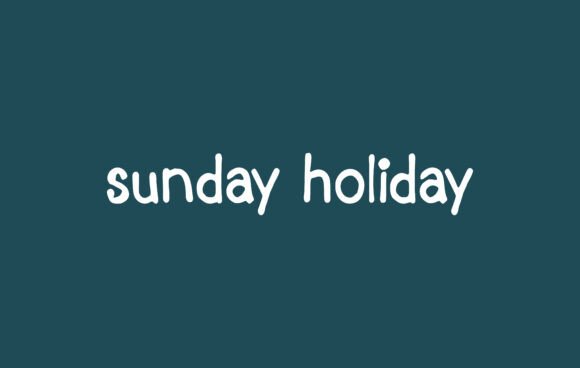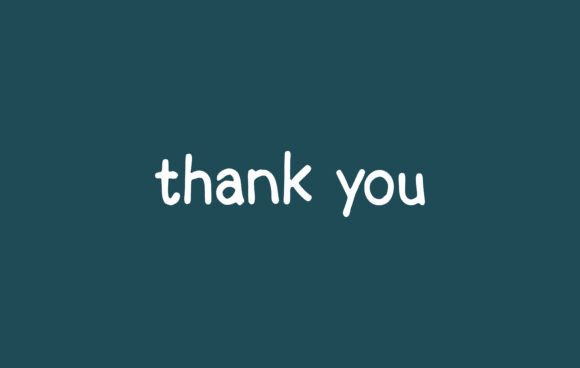
Cleo Font: Elevate Your Designs with a Romantic Handwritten Touch
In the world of typography, a well-crafted font can make all the difference in bringing your creative vision to life. If you’re a designer, crafter, or simply someone who appreciates beautiful typography, you’re in luck. Cleo font is an authentic handwritten font that exudes a romantic touch, making it the perfect addition to your design arsenal.
The Charm of Cleo Font
Cleo font is expertly designed to capture the essence of handwritten typography, with a unique blend of elegance and playfulness. Its romantic touch is sure to captivate your audience, whether you’re creating a wedding invitation, social media post, or magazine headline. This font is not just a pretty face; it’s also highly legible, making it suitable for use as both title and body text.
One of the most exciting aspects of Cleo font is its versatility. Its beautiful, flowing lines make it perfect for a wide range of design applications, including:
• Magazine headlines: Add a touch of sophistication to your editorial designs with Cleo font’s elegant typography.
• Social media: Stand out on social media platforms with eye-catching graphics and typography that showcases your brand’s personality.
• Branding: Create a cohesive visual identity for your business with Cleo font’s unique and memorable style.
• Wedding invitations: Make your special day even more unforgettable with beautiful, custom wedding invitations featuring Cleo font.
• Cards and stationery: Add a personal touch to your correspondence with Cleo font’s charming, handwritten aesthetic.
Why Choose Cleo Font?
So, what sets Cleo font apart from other fonts on the market? Here are just a few reasons why designers and crafters are falling in love with this beautiful typography:
• Authentic handwritten feel: Cleo font is carefully crafted to mimic the look and feel of handwritten typography, giving your designs a personal and unique touch.
• High legibility: Unlike some handwritten fonts, Cleo font is highly legible, making it perfect for use in a variety of design applications.
• Romantic touch: Add a touch of elegance and sophistication to your designs with Cleo font’s romantic, flowing lines.
• Versatility: From magazine headlines to wedding invitations, Cleo font is the perfect choice for a wide range of design projects.
Tips for Using Cleo Font
To get the most out of Cleo font, here are a few tips to keep in mind:
• Experiment with font sizes: Cleo font looks great in a variety of font sizes, from large headlines to smaller body text.
• Play with color: Cleo font is beautiful in a range of colors, from classic black and white to bold, bright hues.
• Mix and match: Don’t be afraid to combine Cleo font with other typography styles to create a unique and eye-catching design.
In conclusion, Cleo font is a beautiful, authentic handwritten font that is sure to elevate your designs to the next level. Its romantic touch, high legibility, and versatility make it the perfect choice for designers, crafters, and anyone looking to add a touch of elegance and sophistication to their creative projects. So why wait? Discover the charm of Cleo font for yourself and take your designs to new heights.